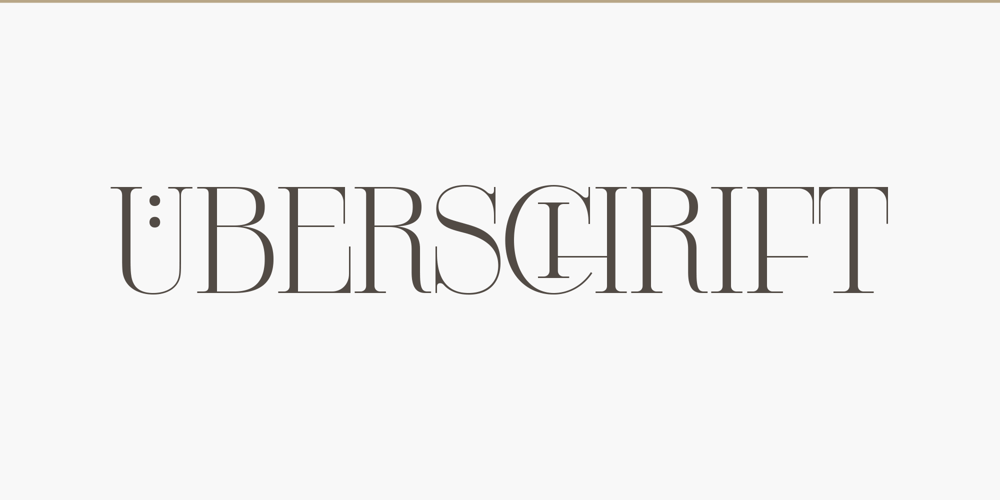
Uberschrift
Uberschrift font
Uberschrift Font Family was designed by Friedrich Althausen and published by FDI. Uberschrift contains 1 styles and family package options. Uberschrift is an elegant display font for creating expressive headlines or logos. The font contains only capital letters, but comes with 200 discretionary ligatures and several alternate characters. Check out the type specimen PDF for more details and a closer look at the typeface. To access the ligatures you need to use an OpenType-savvy app that supports discretionary ligatures.